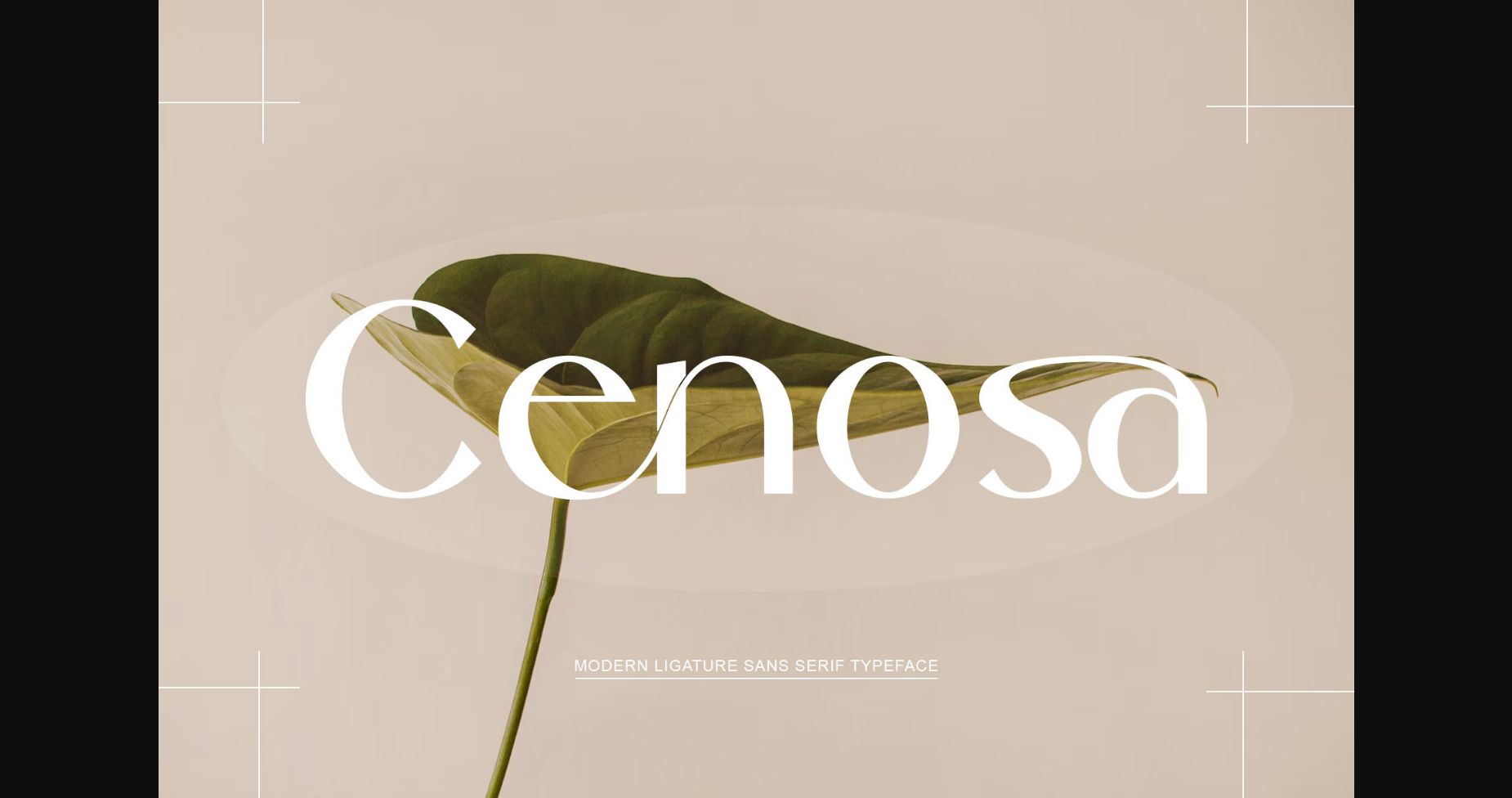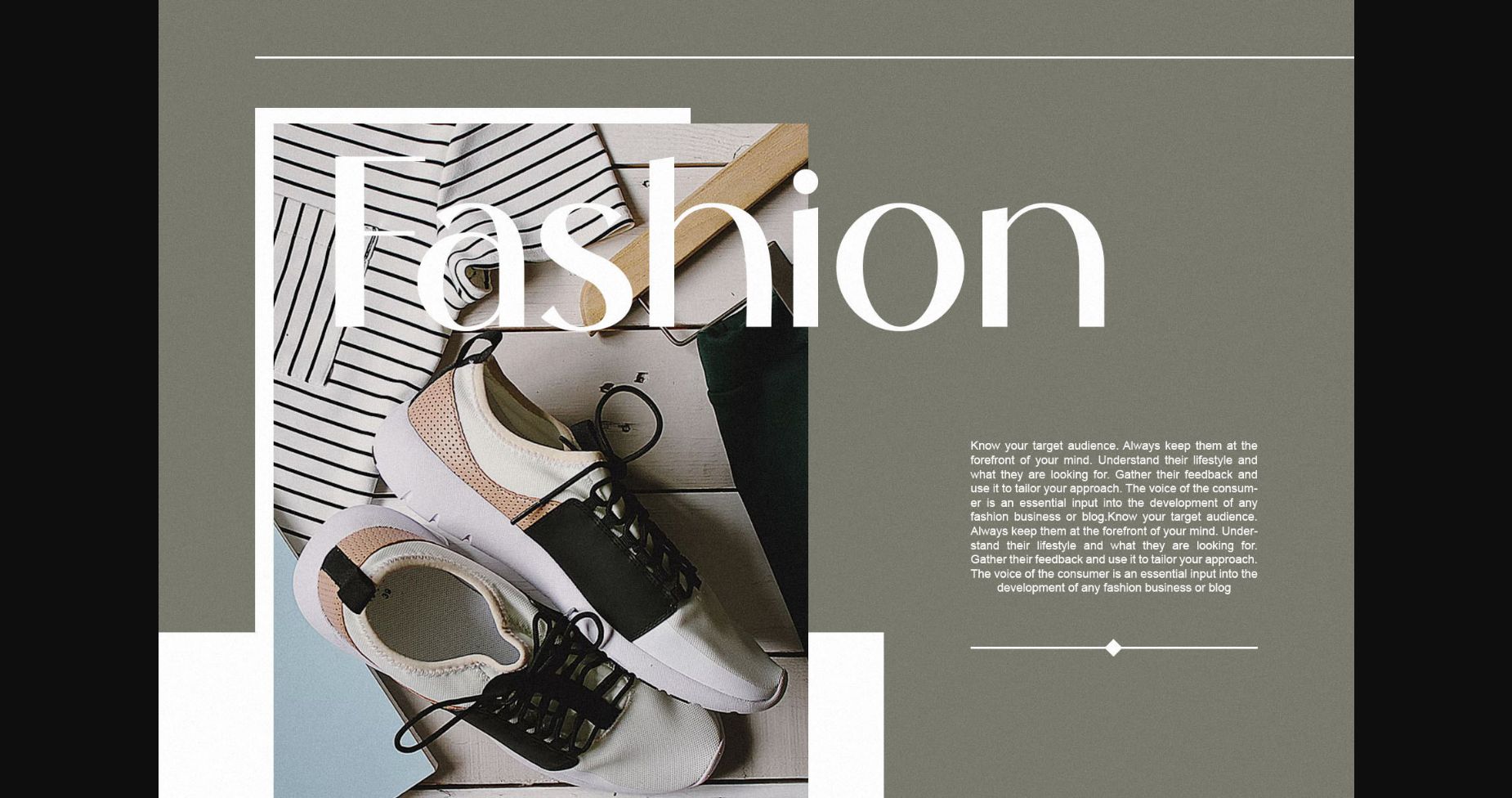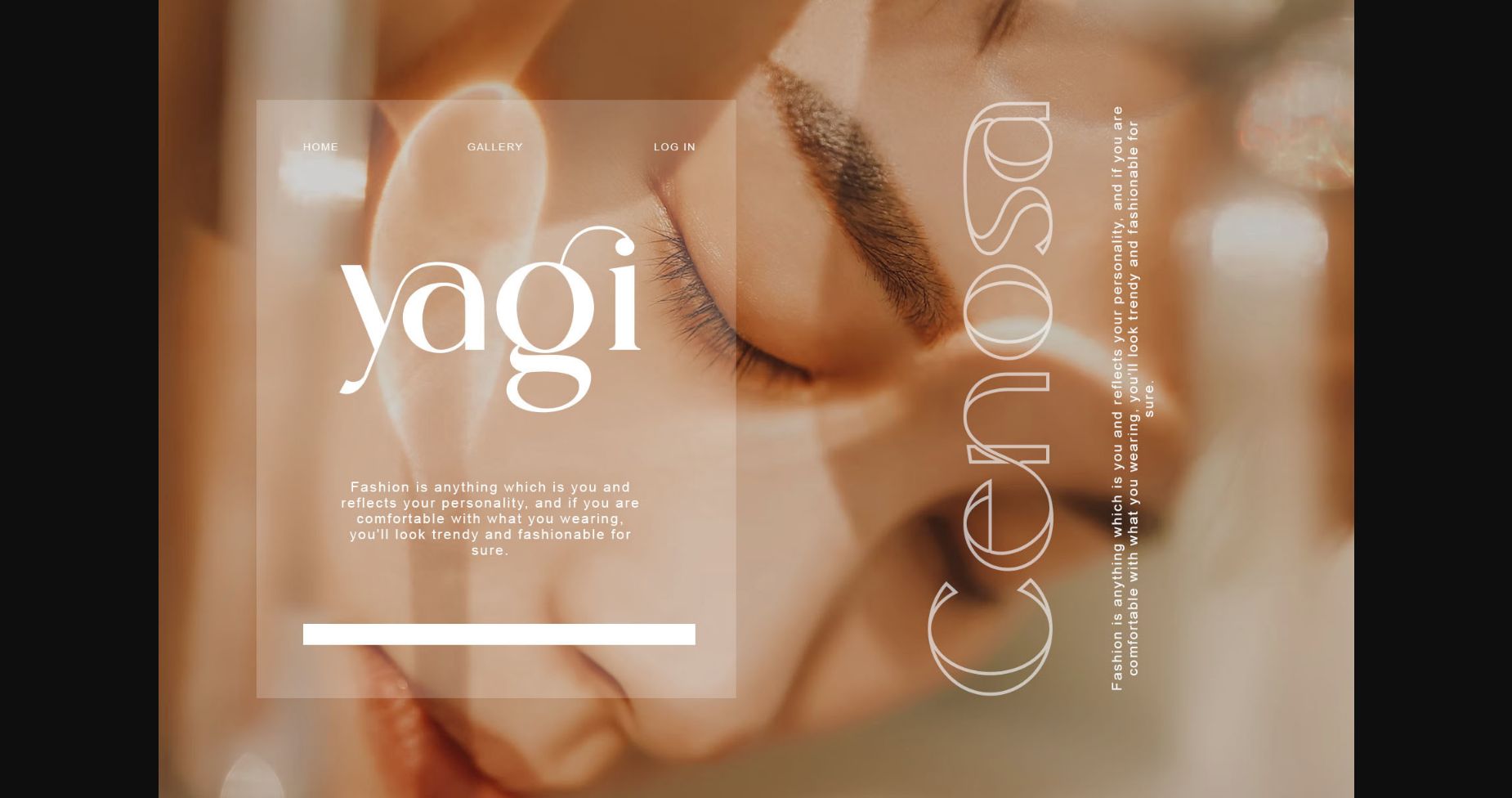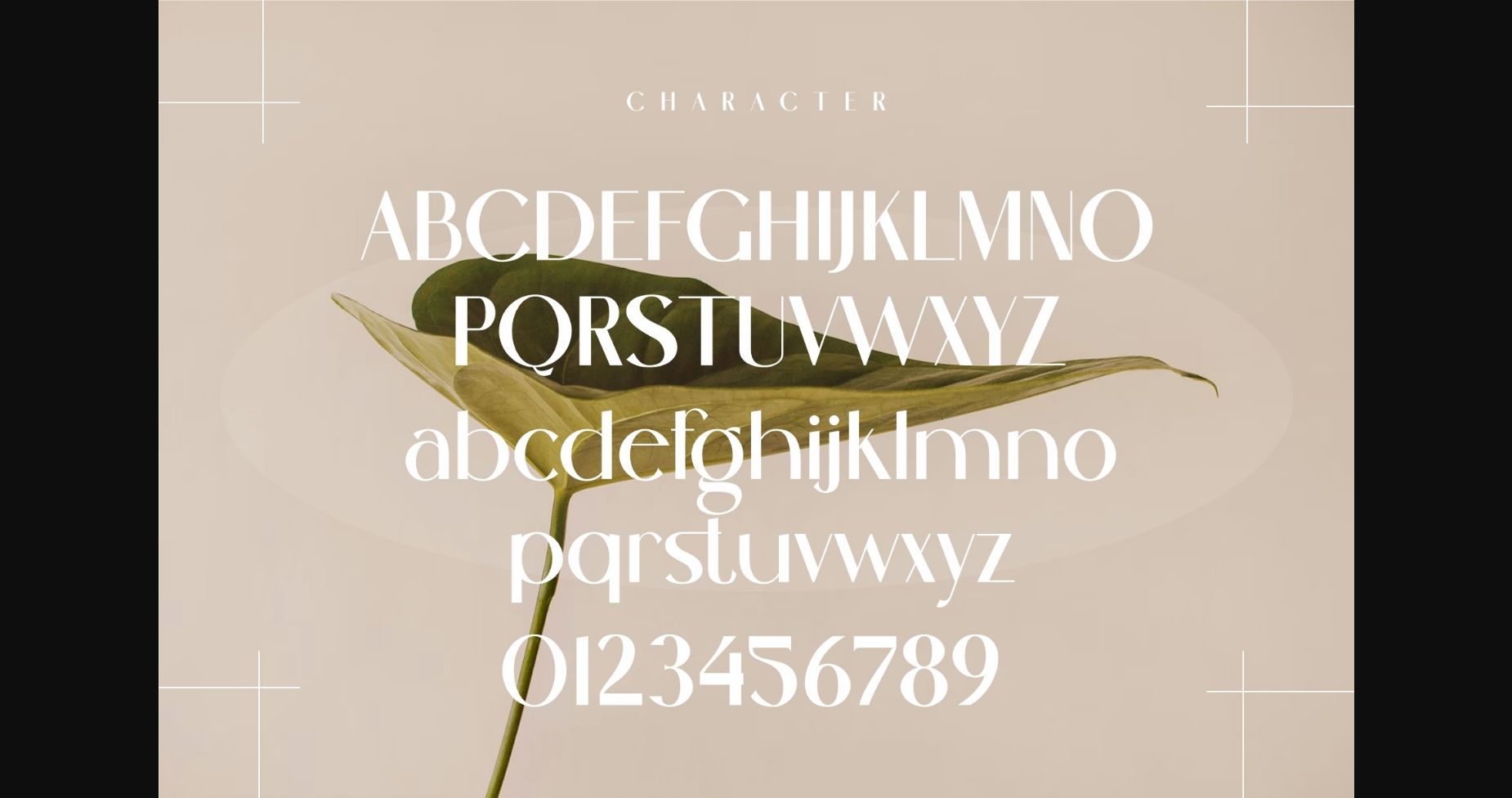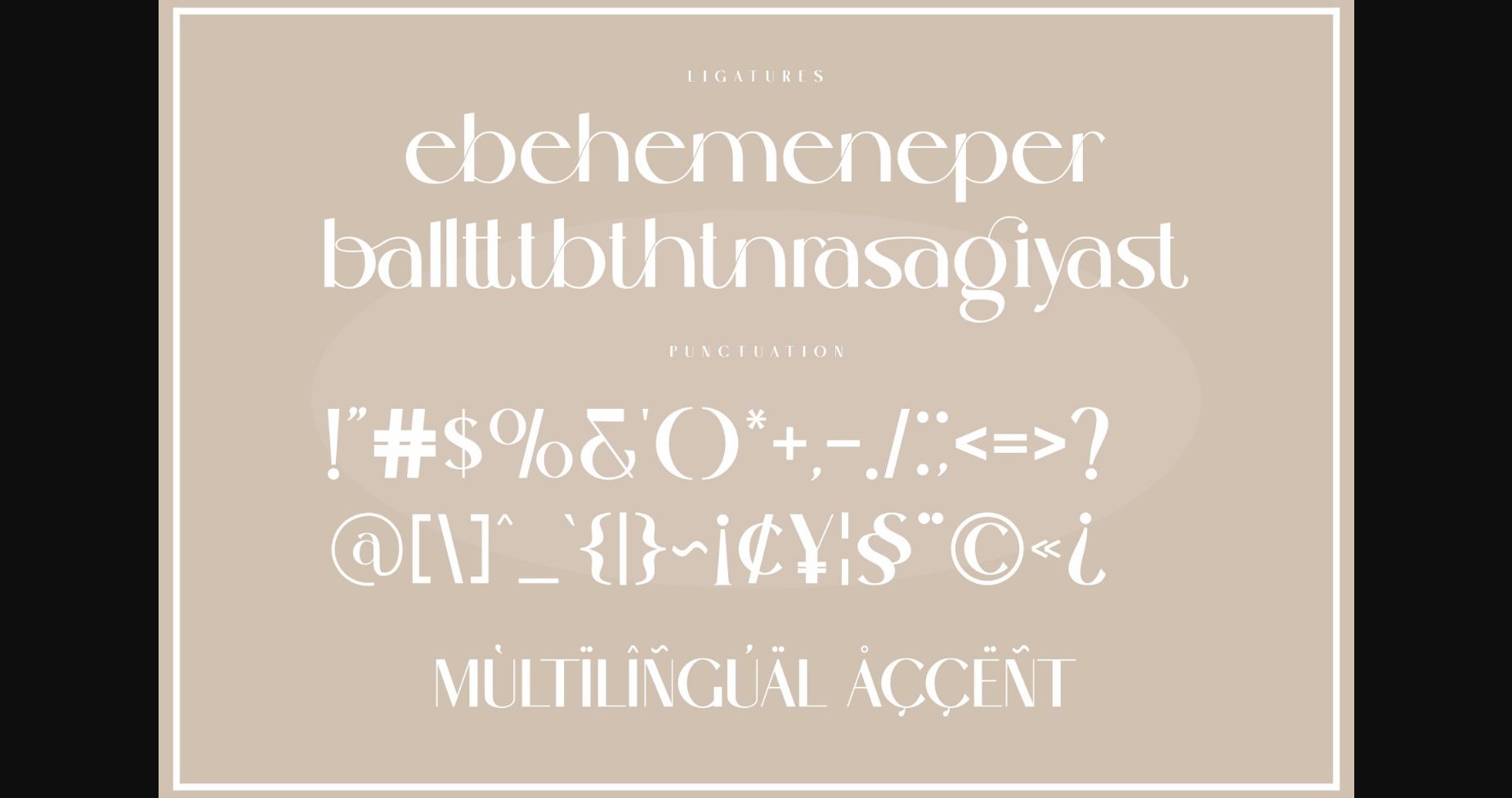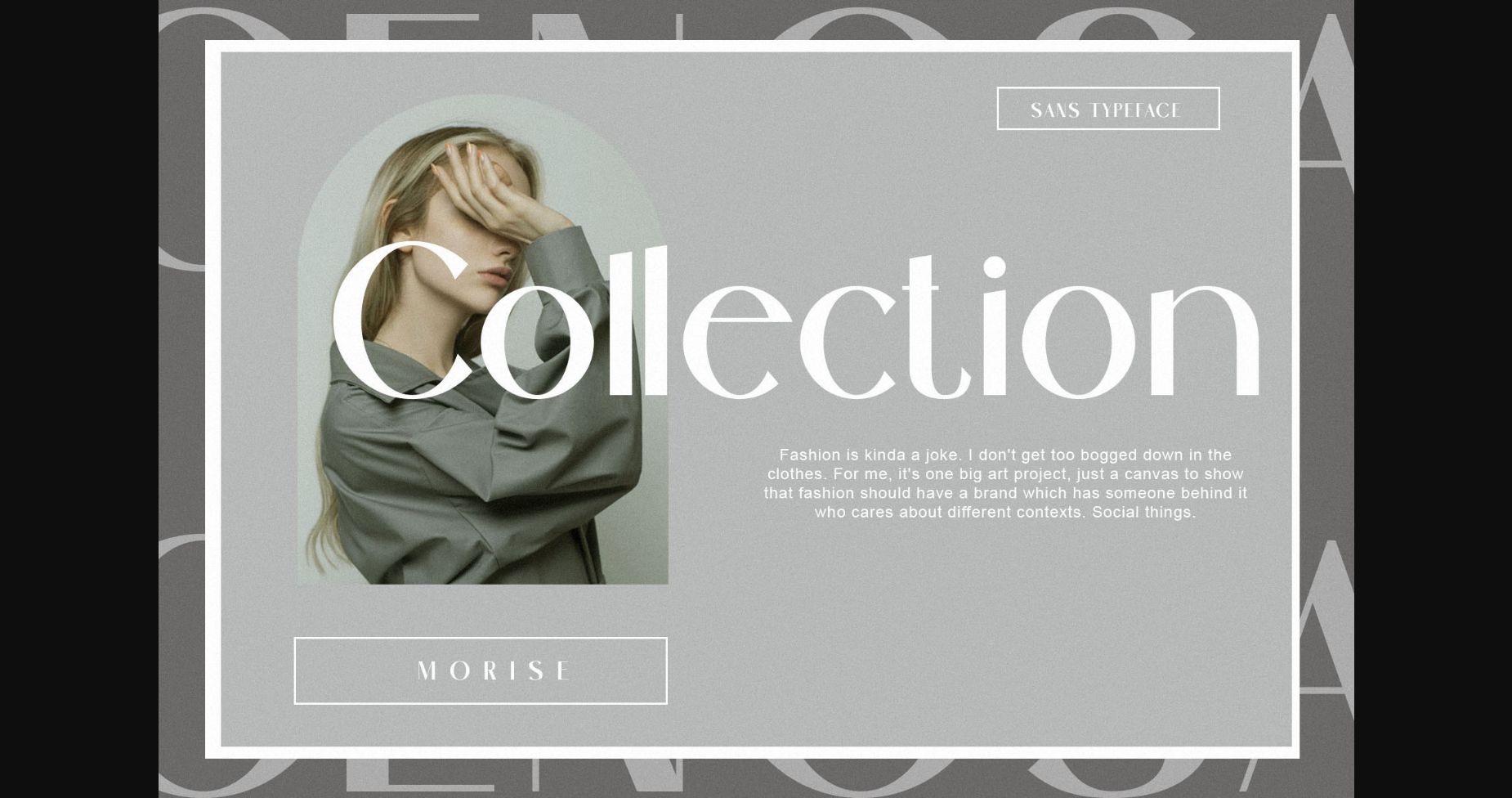
Cenosa Font
About Cenosa Font
Cenosa is a sans serif font with simple, clean, and visual elegance. Specially designed for elegant-themed projects, this font will fit like a glove with a variety of design ideas. This font is PUA encoded, which means you can easily access all the amazing glyphs and swashes!